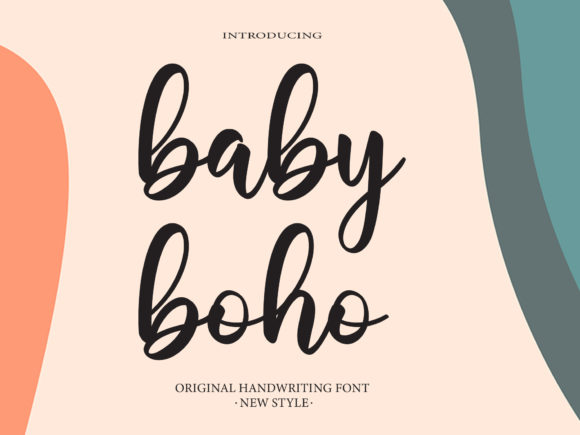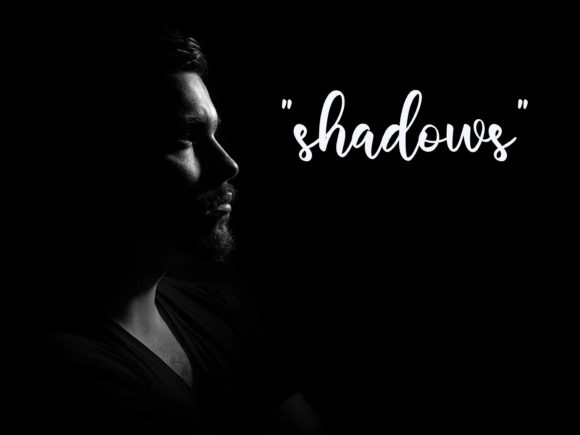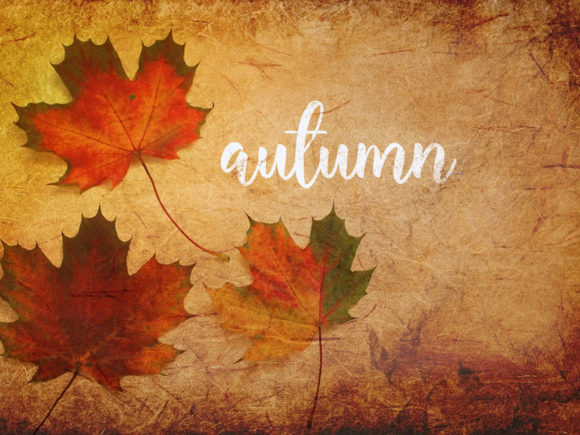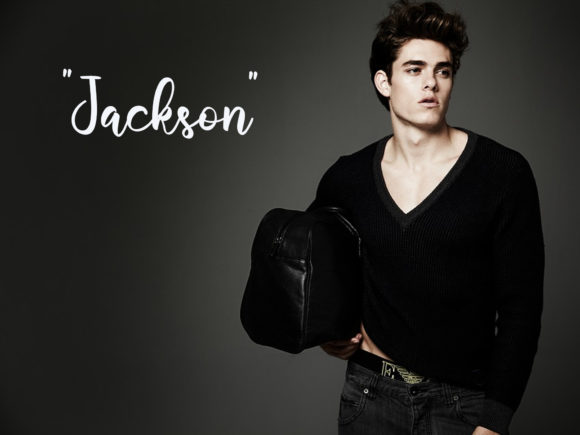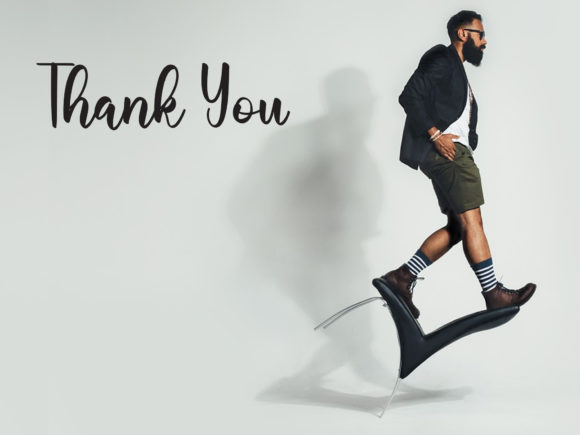
Baby Boho Font
About Baby Boho Font
Baby Boho is a delicate handwritten font that is carefully crafted to produce cool and unique designs. This font can be used to write letters, invitations, food products and more.